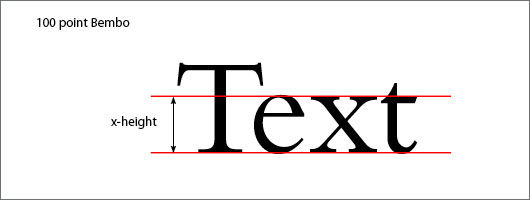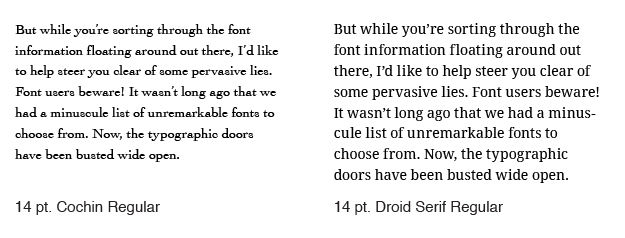
16. Font Size Matters
Font size should always be large enough for users to read text withou strain.
Some fonts look bigger at the same point size, because they have a larger x-height.